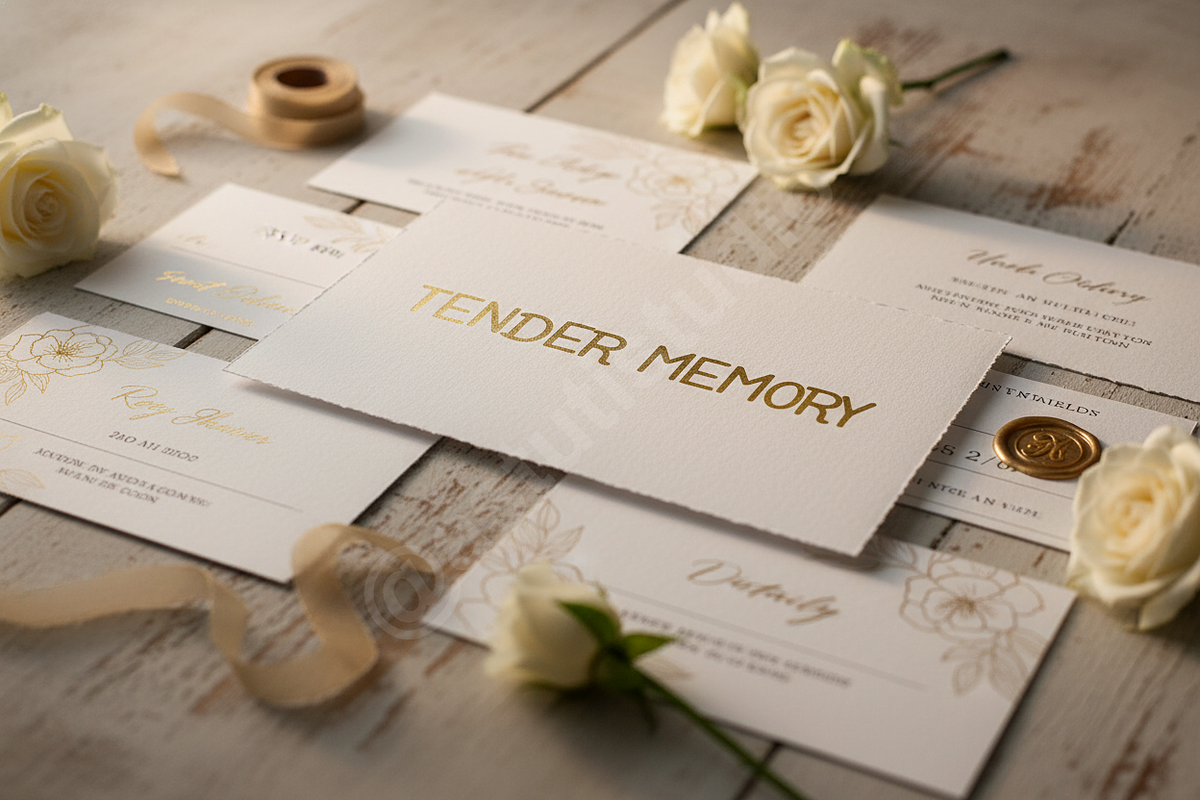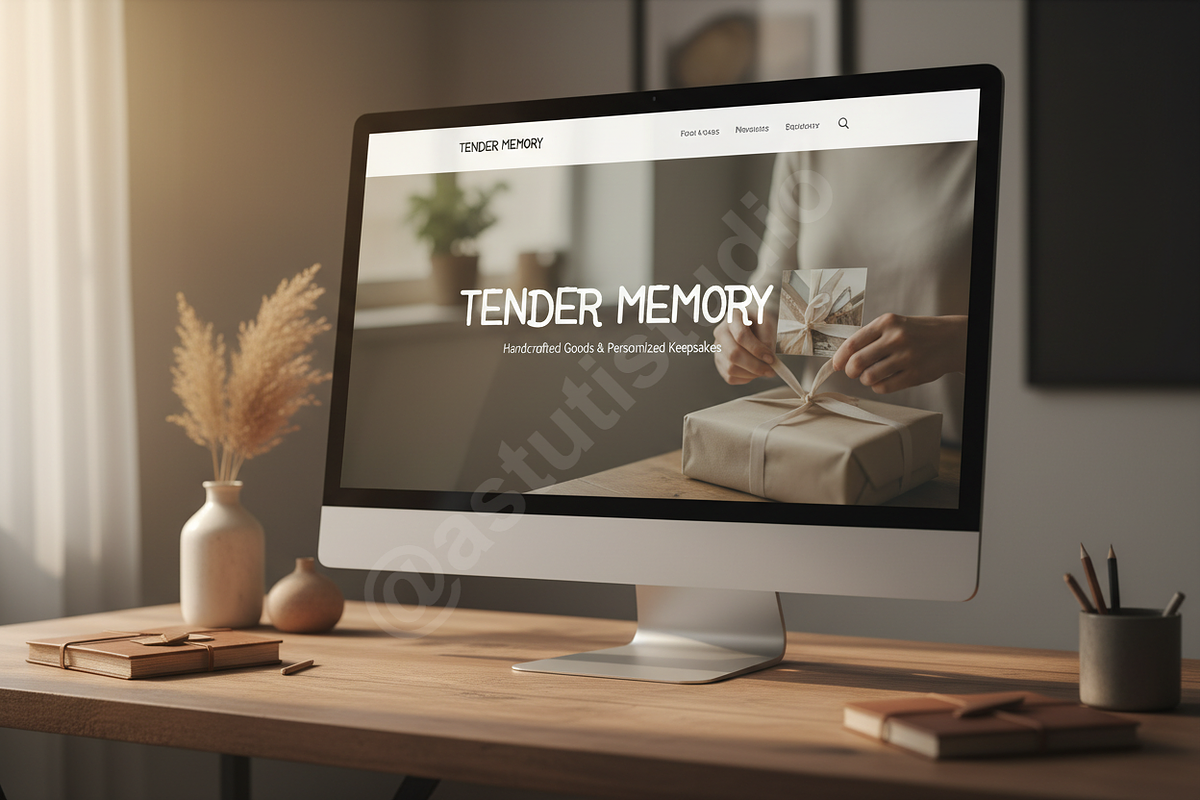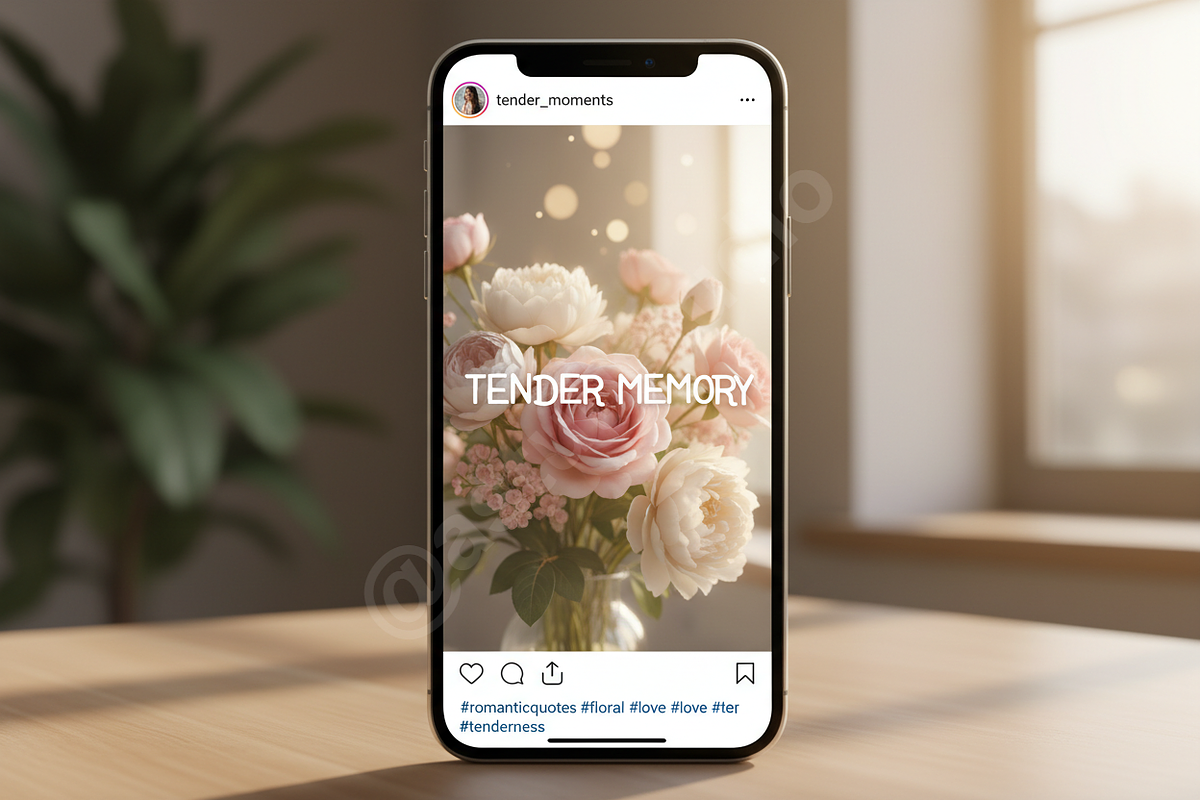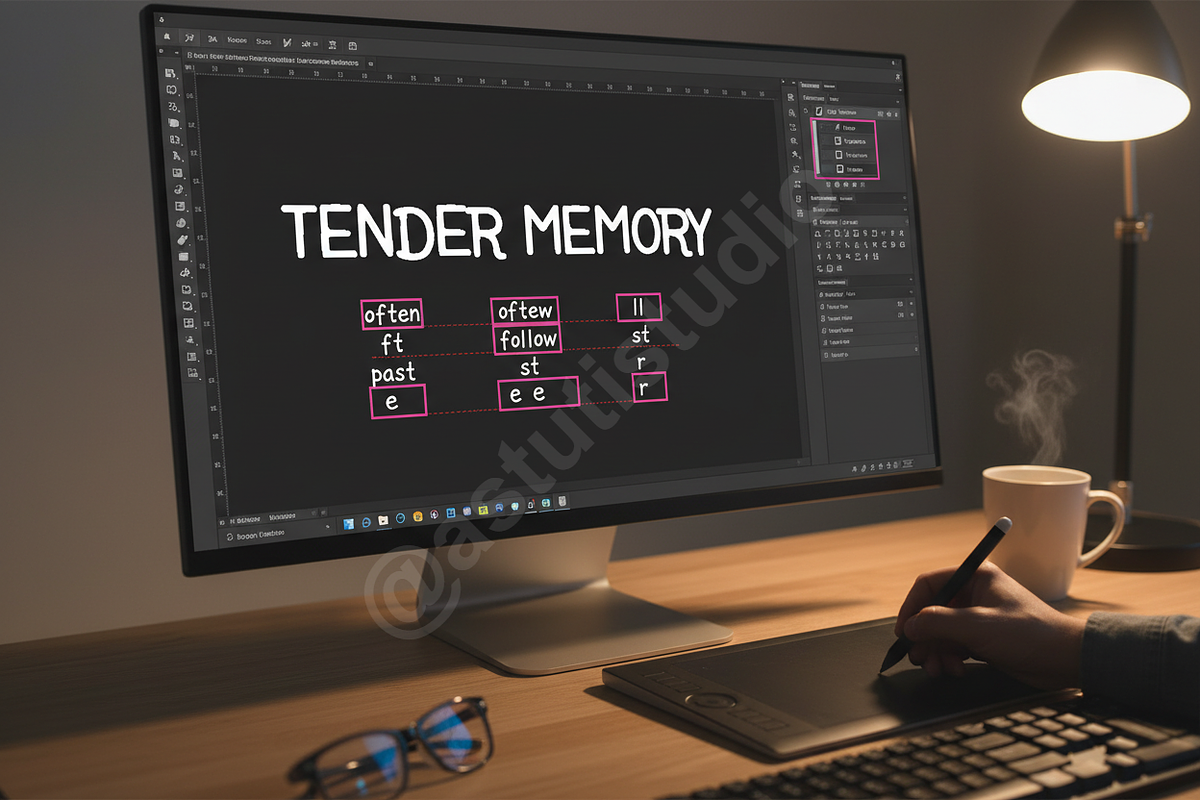
Pewosu | Elegant Modern Serif Typefa
Pewosu is a premium serif typeface meticulously crafted for designers who demand sophistication and grace. Drawing inspiration from contemporary studio aesthetics, this font strikes a perfect balance between sharp, confident edges and fluid, organic curves. It is an essential tool for high-end luxury branding, editorial design, and curated social media content, offering a sense of timeless elegance to every project.
- Sophisticated serif letterforms with a modern edge
- Extensive character set with full multilingual support
- Curated selection of ligatures and stylistic alternates
- Expertly balanced kerning for professional readability
- Highly versatile for display headlines and body copy
- Optimized for both print and digital environments